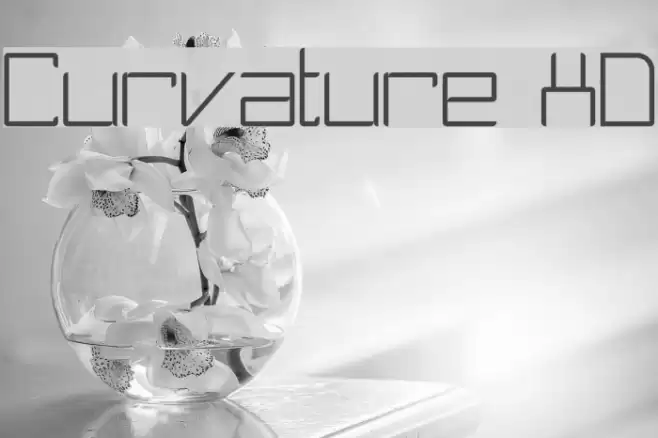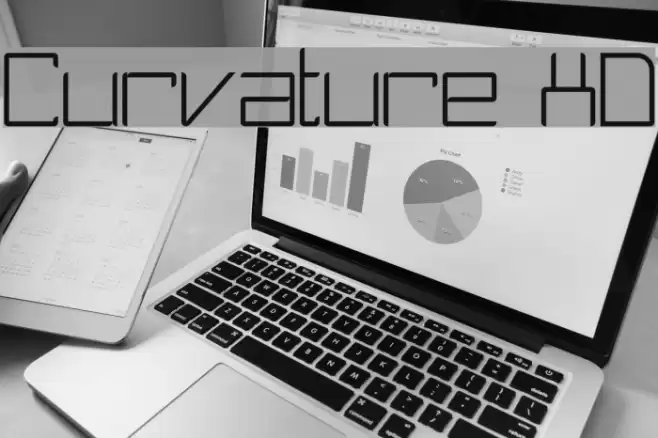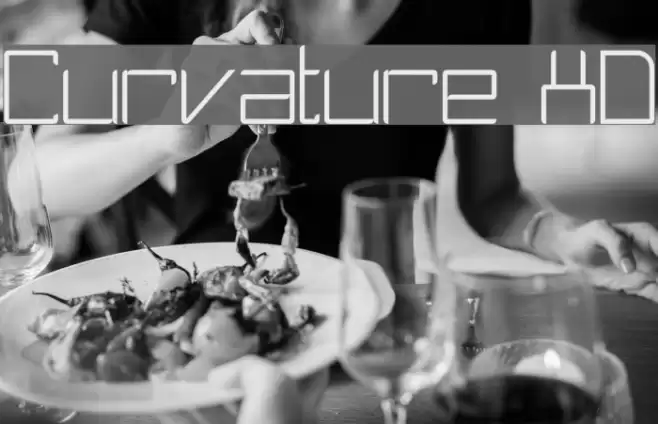
Curvature XD Font
Curvature XD Description
This font features a modern, geometric design with a distinctively futuristic aesthetic. The characters are constructed with a consistent line weight, creating a uniform appearance across both uppercase and lowercase letters. The design incorporates sharp angles and straight lines, giving it a technical and digital feel. The numerals and special characters maintain this style, ensuring cohesion throughout the typeface. The font's structure is clean and minimalistic, making it suitable for contemporary design projects that require a sleek and innovative look.
A modern, geometric font with a futuristic and technical style from Uncategorized fonts.
- Proposed Projects: Ideal for tech branding, digital interfaces, futuristic posters, and modern logo designs.
- Use Case: Headlines, Logos, Digital interfaces